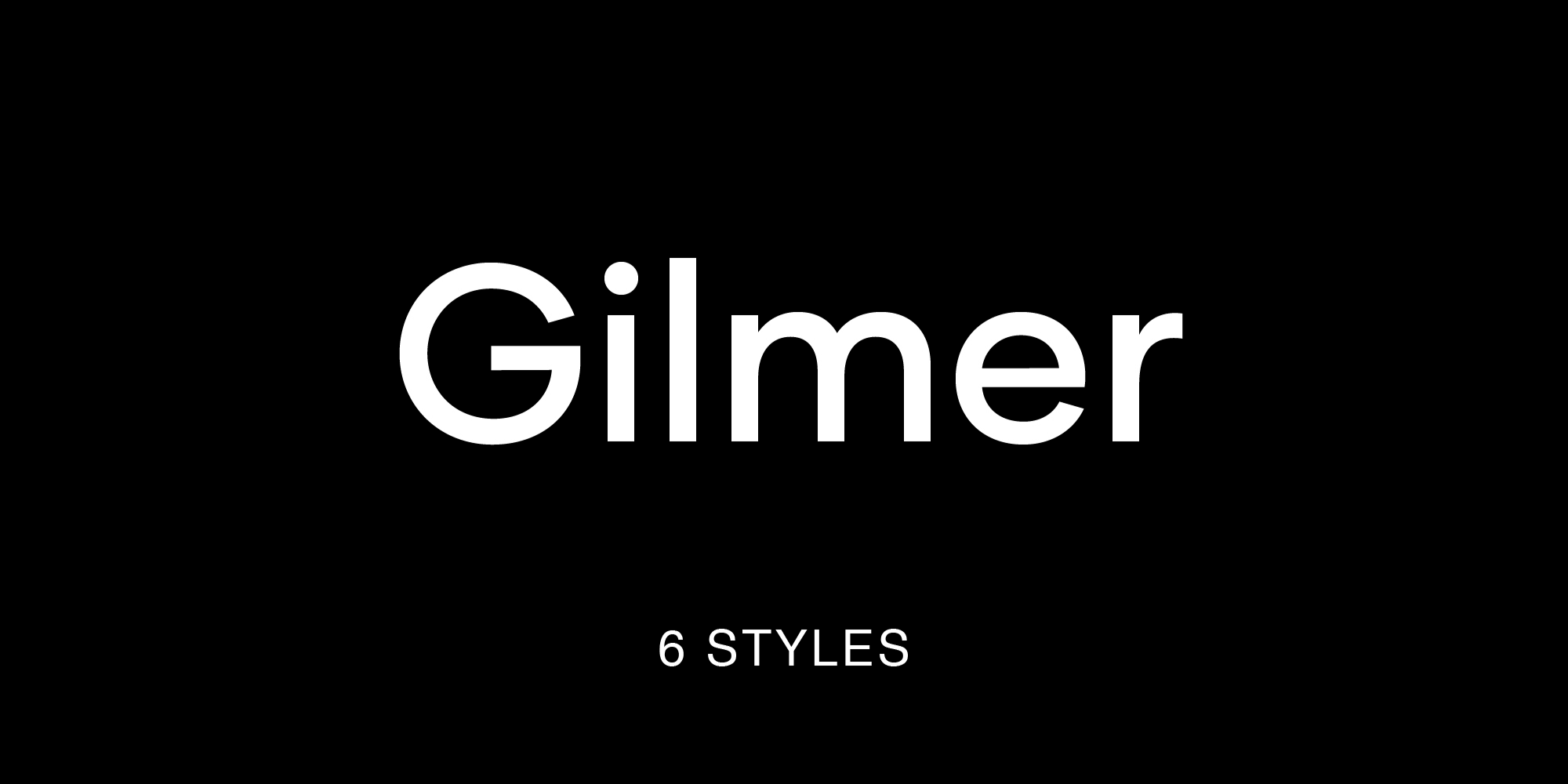
The Gilmer Font is perfect for modern startup branding, tech company communications, contemporary web interfaces, mobile applications, innovative product packaging, creative agency portfolios, digital marketing campaigns, and forward-thinking design projects that require clean geometric aesthetics with friendly accessibility.
What makes the Gilmer Font Free Download so exciting is its perfect fusion of geometric precision with approachable warmth that creates a typeface both professional and personable. This font features clean geometric forms softened by subtle humanist touches that prevent it from feeling cold or mechanical. Its carefully balanced proportions and optimized character spacing deliver exceptional readability across all digital platforms while maintaining a distinctive personality that helps brands stand out in crowded markets without sacrificing trustworthiness or clarity.
The Gilmer Font family includes comprehensive weight options from Thin to Black, providing complete flexibility for diverse design applications. The collection features Light, Regular, Medium, Semibold, Bold, and Heavy variants with corresponding italic styles for enhanced typographic expression. This extensive font system ensures designers have access to versatile typography that performs consistently across websites, mobile apps, print materials, and branding applications while maintaining visual coherence throughout complex design systems.
Essential for tech startups, digital agencies, innovative brands, and creative professionals developing contemporary visual identities. The font's modern appeal makes it invaluable for UX/UI designers, brand strategists, and marketing teams creating user-friendly communications that must balance professionalism with accessibility. Download Gilmer Font Free Download today and give your modern projects the typography they deserve with this exceptional typeface designed for today's digital-first world.